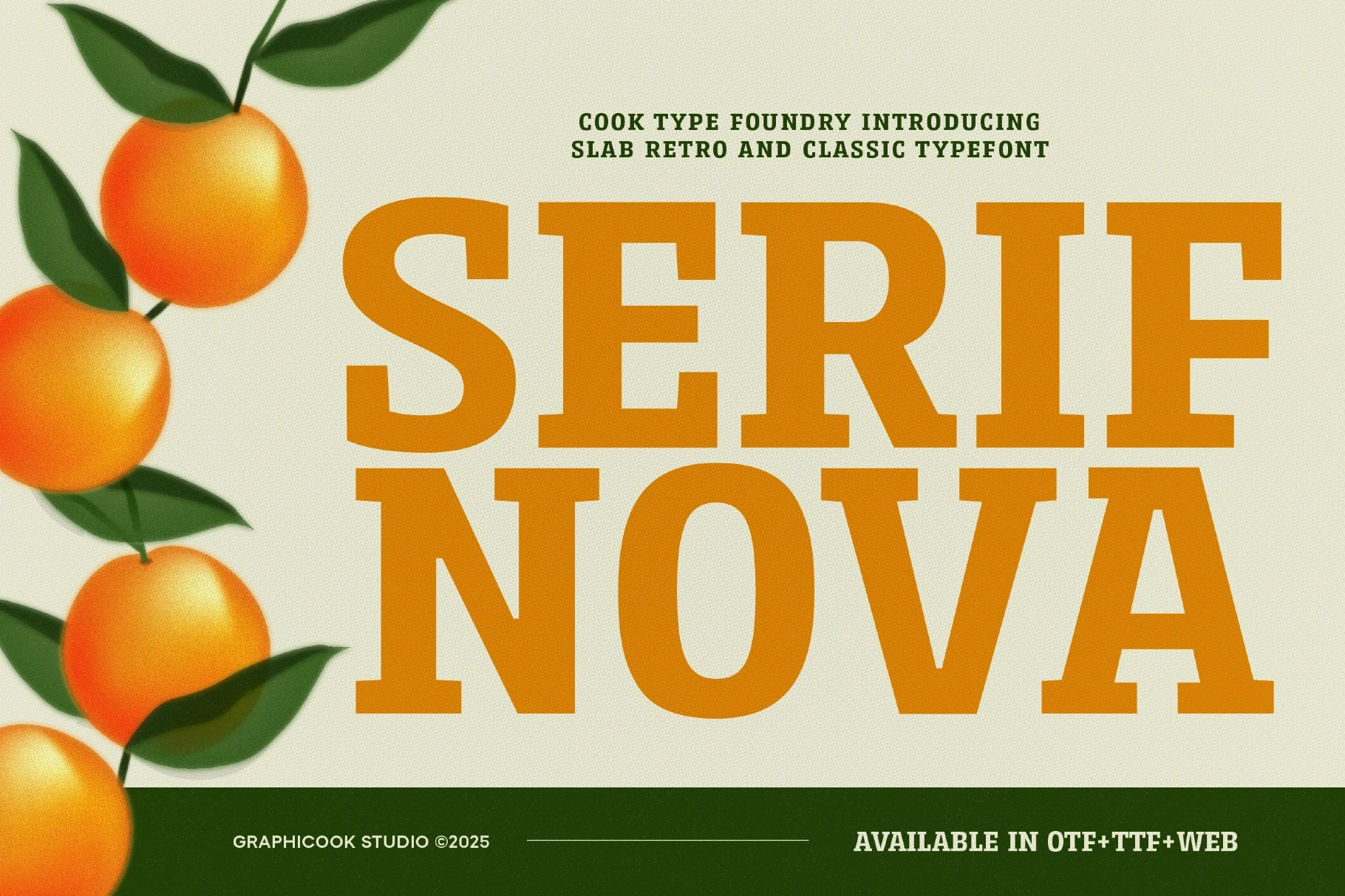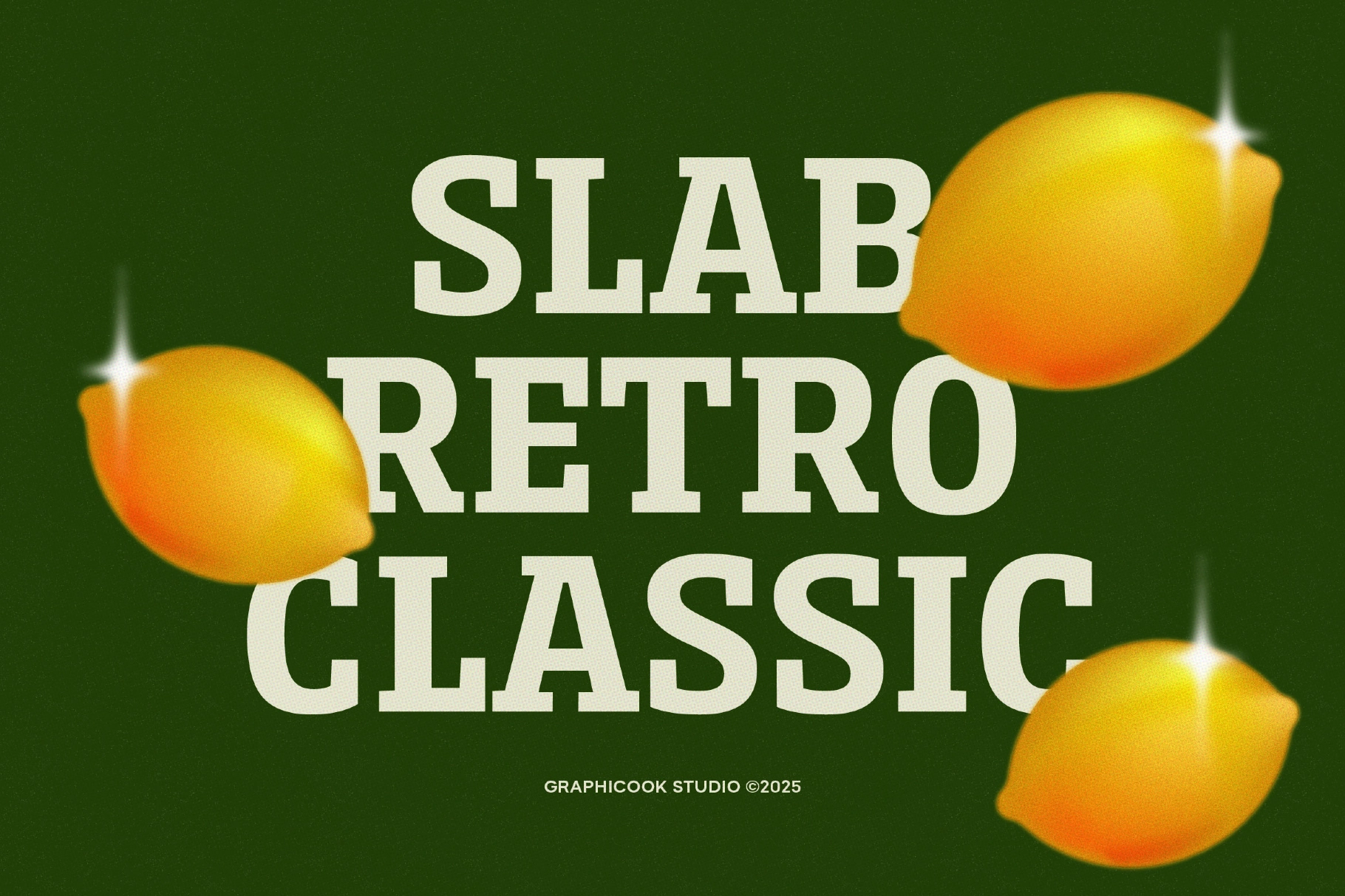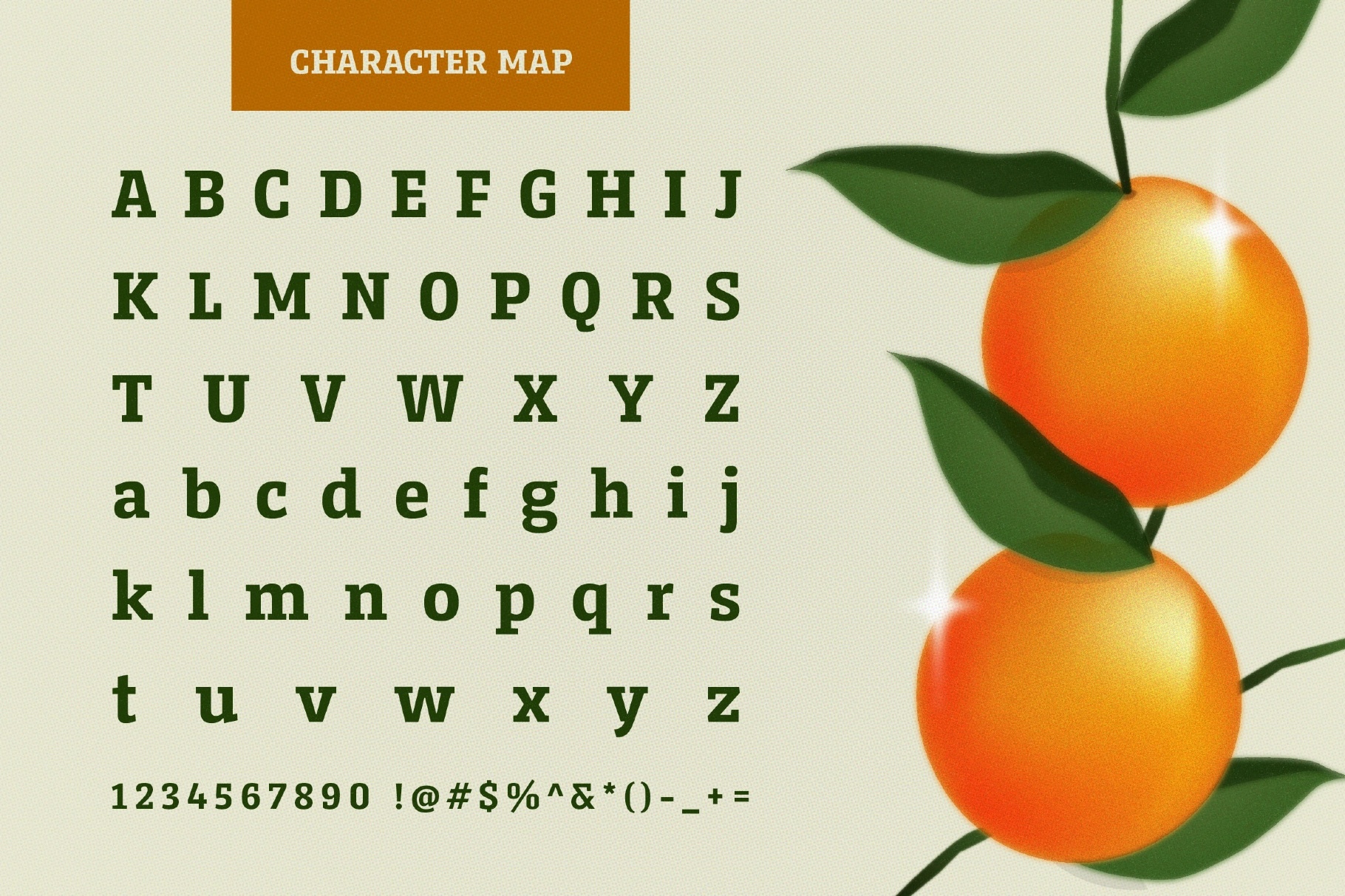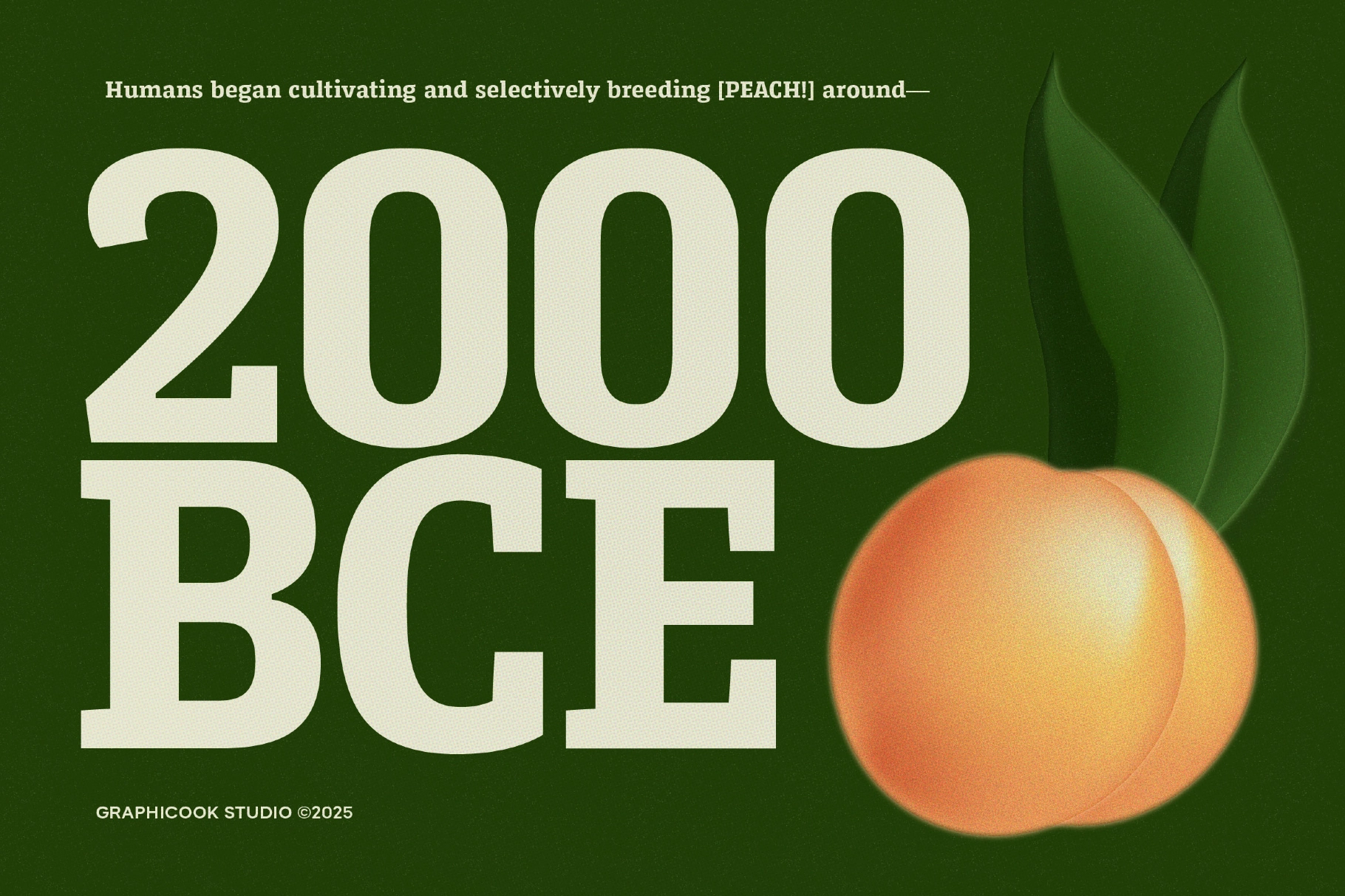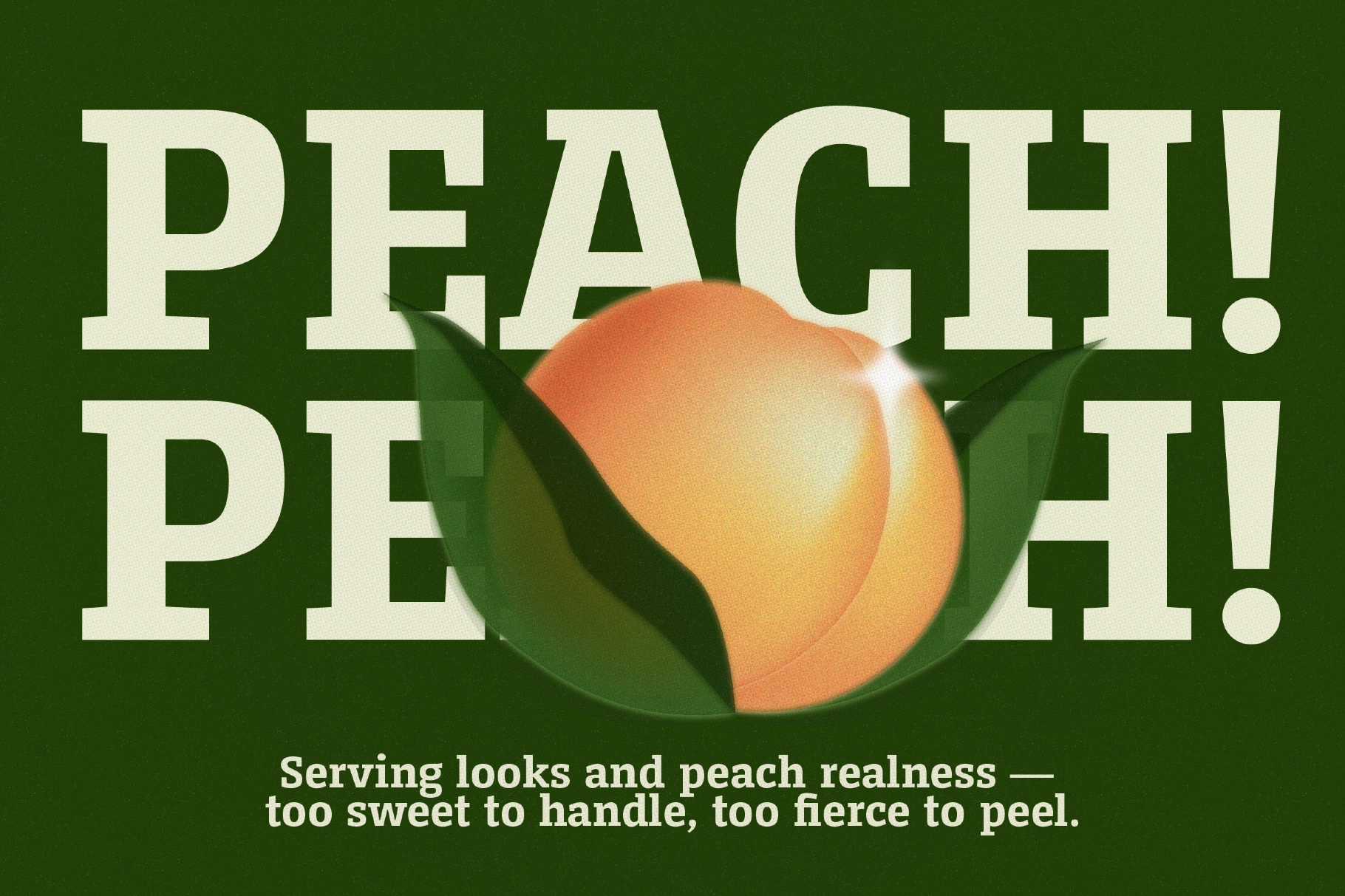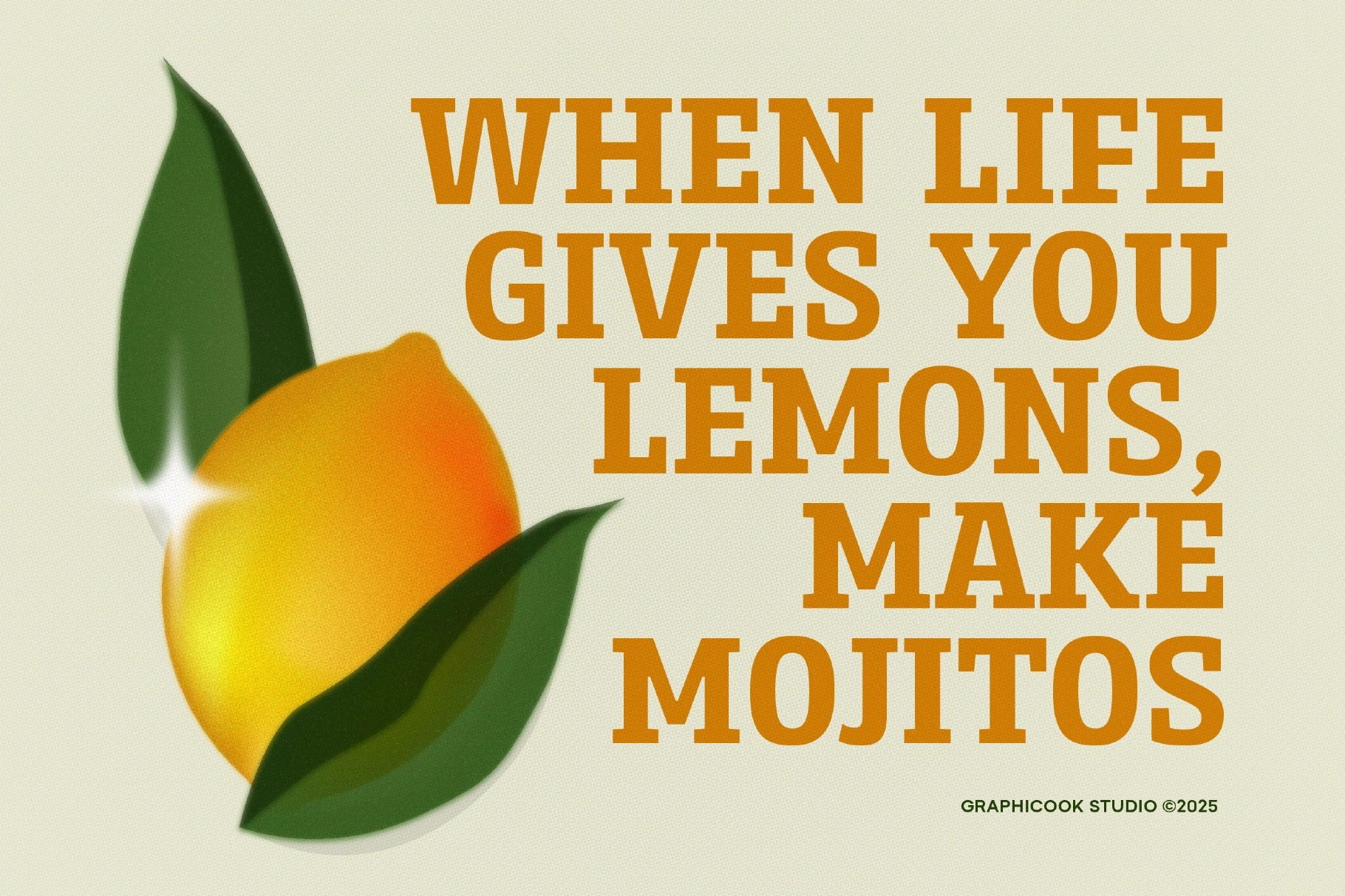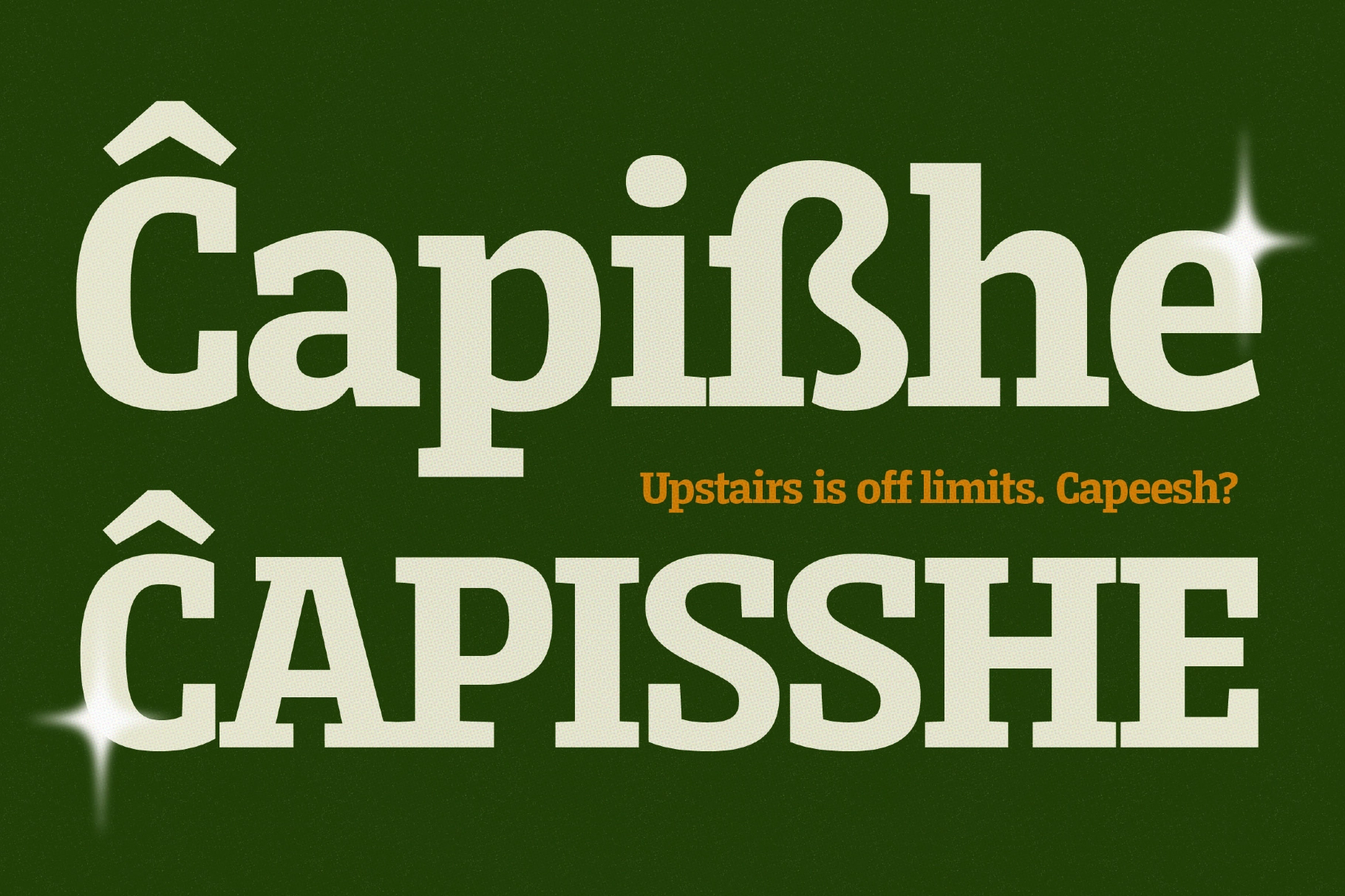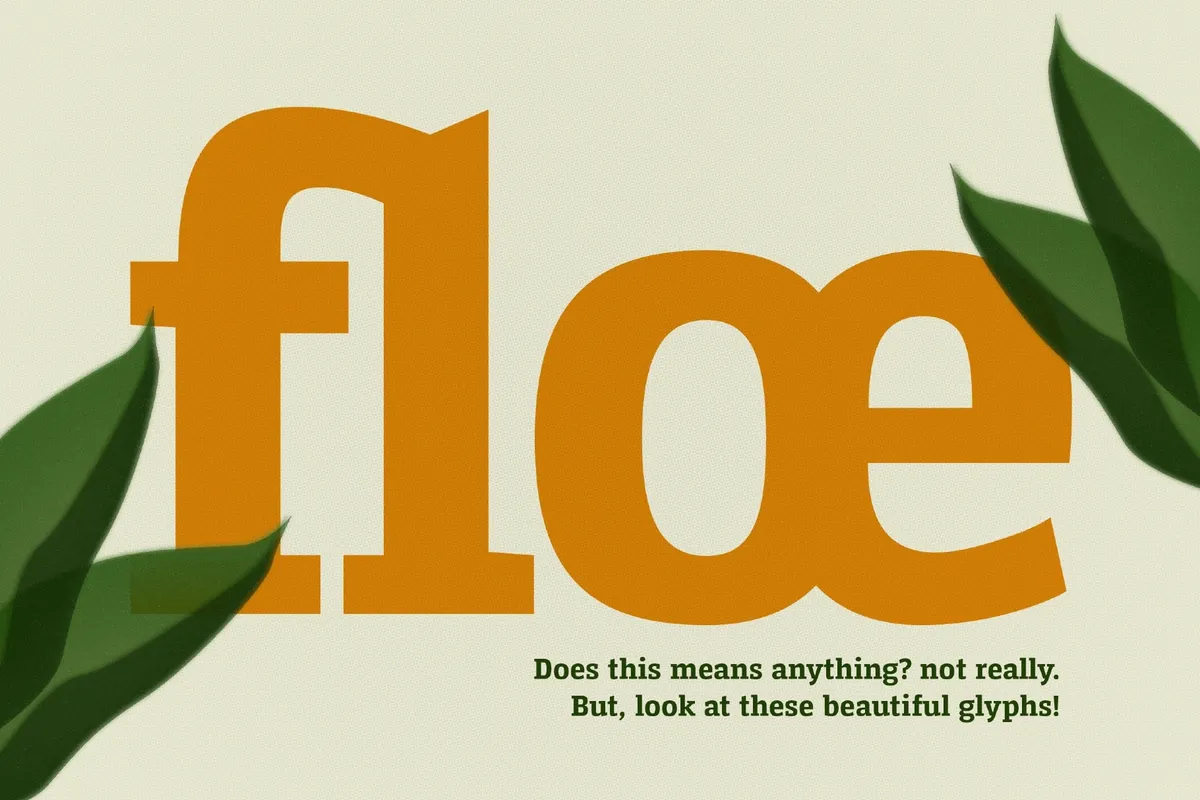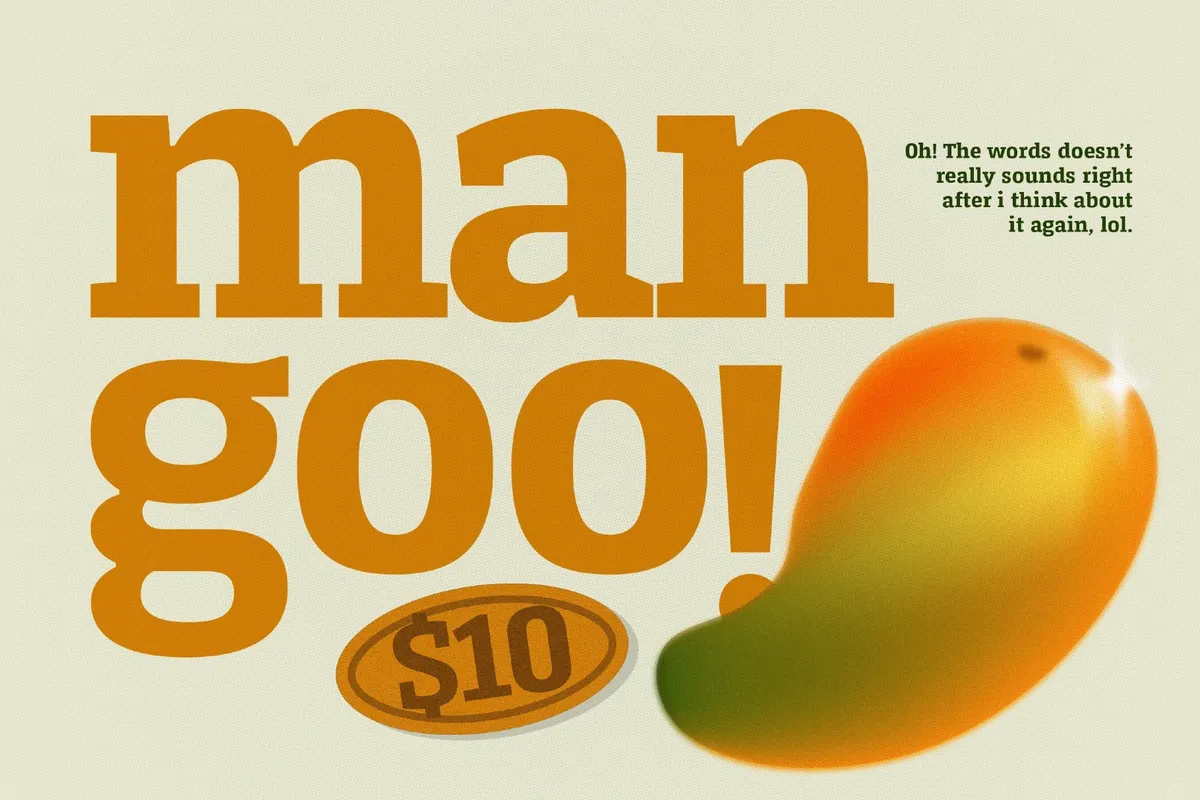
Serifnova Font
Serifnova
Serifnova is a slab-serif font with a solid and structured form, wrapped in a retro aesthetic. Ideal for logos or branding with a classic or vintage touch.